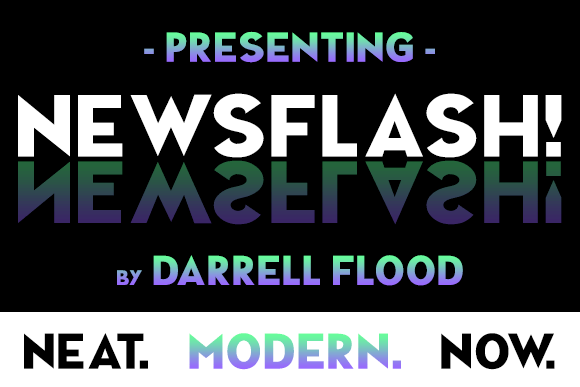
Newsflash Font
A clean, crisp, modern typeface with full upper and lower case support. Sharp corners and smooth curves combine in pleasing forms. Perfect for magazines and flyers!